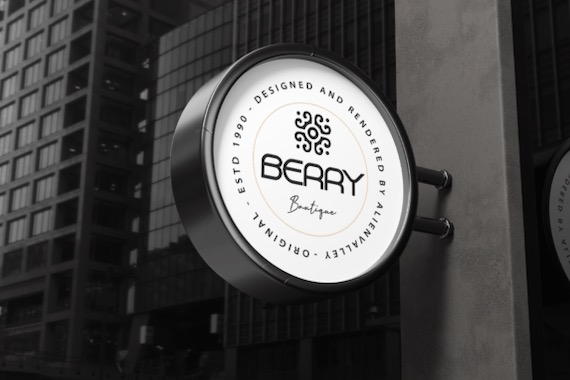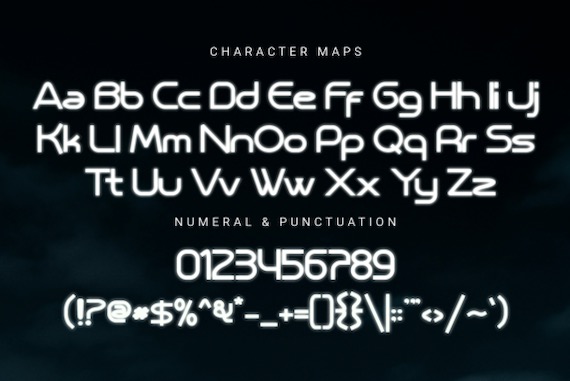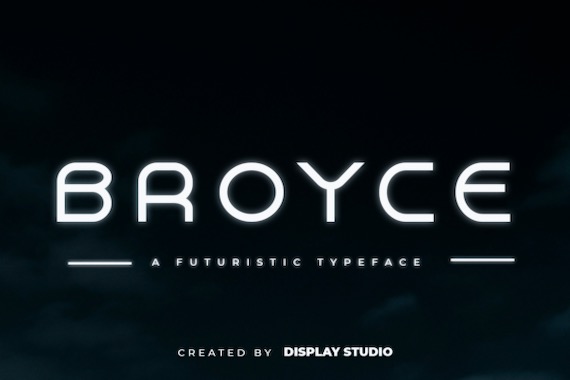
Broyce Font is a clean and cool display typeface that was created and shared by DisplayStudio_. Add this adaptable and luxury font to your favorite creations and notice how easily they stand out.
Broyce Display Font